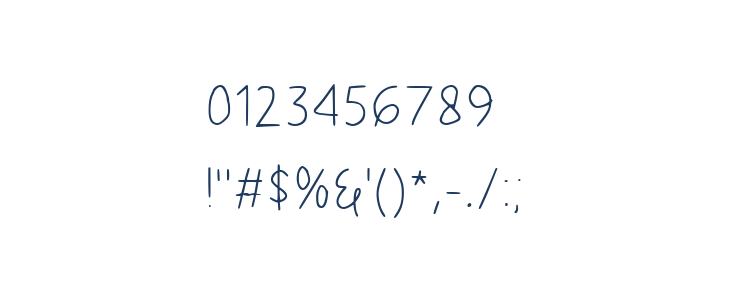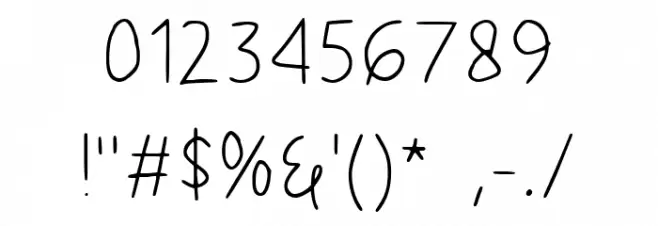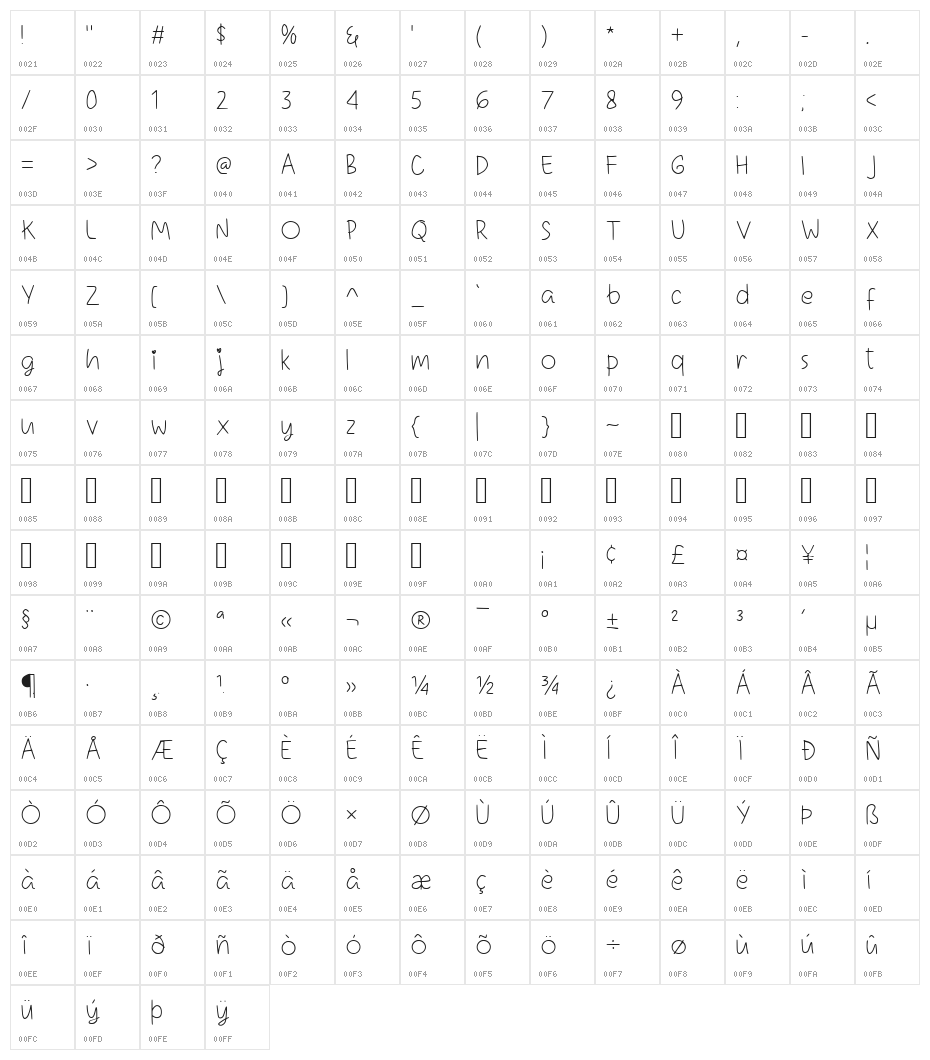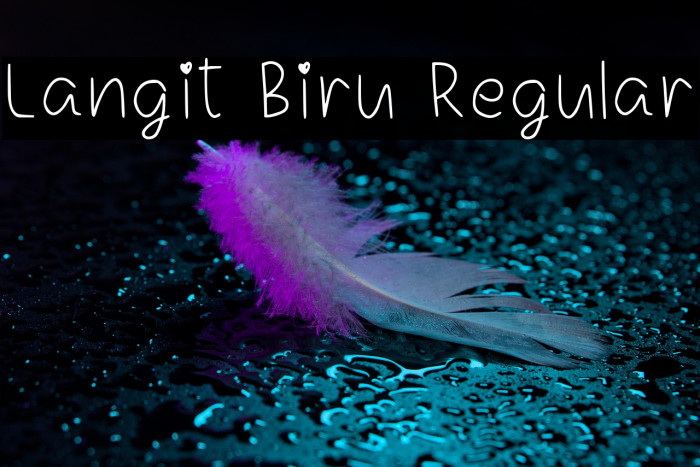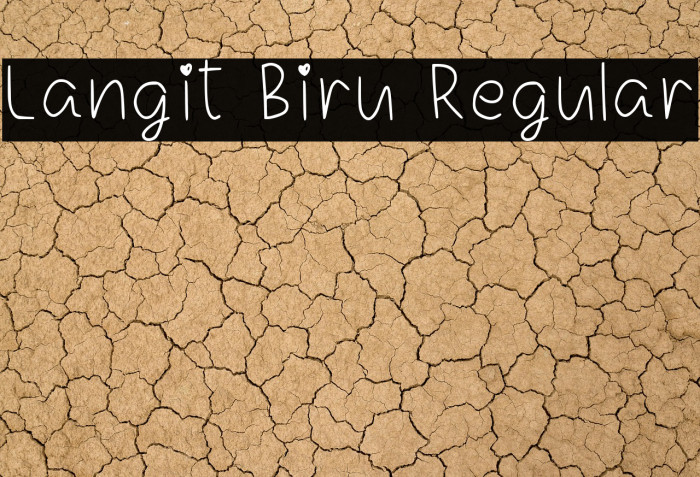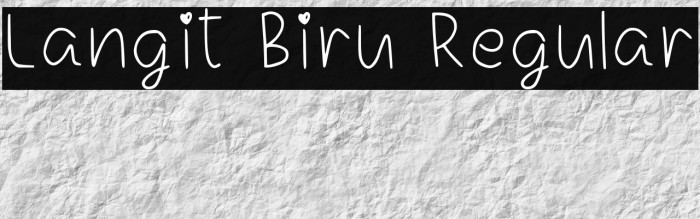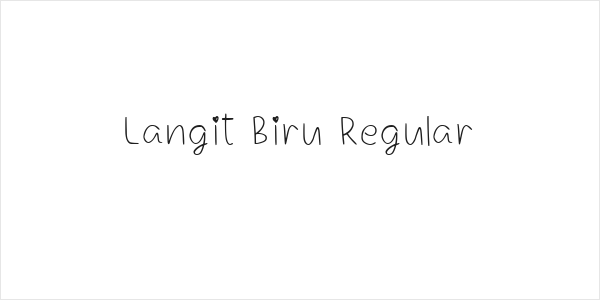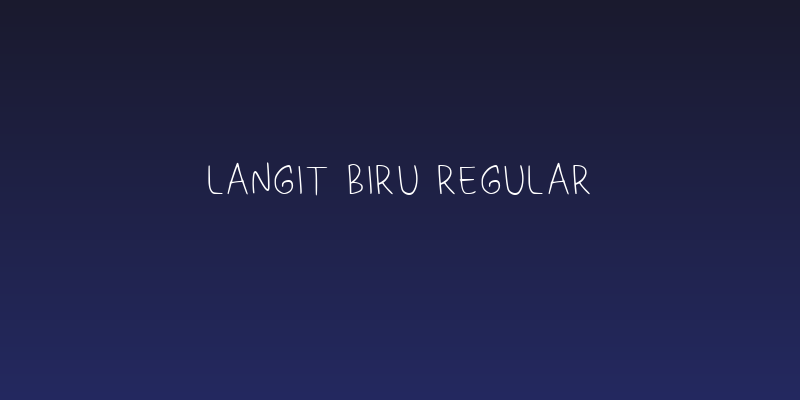
Langit Biru Regular Font
Langit Biru Regular Description
This font features a playful and whimsical handwritten style, characterized by its irregular strokes and charming imperfections. The letters are slightly tilted, giving a casual and friendly appearance. The uppercase and lowercase letters maintain a consistent flow, while the numbers and special characters complement the overall style. The font's simplicity and light-heartedness make it suitable for projects that require a personal touch or a fun, informal vibe.
| Proposed Projects | Ideal for greeting cards, children's books, playful branding, and social media graphics. |